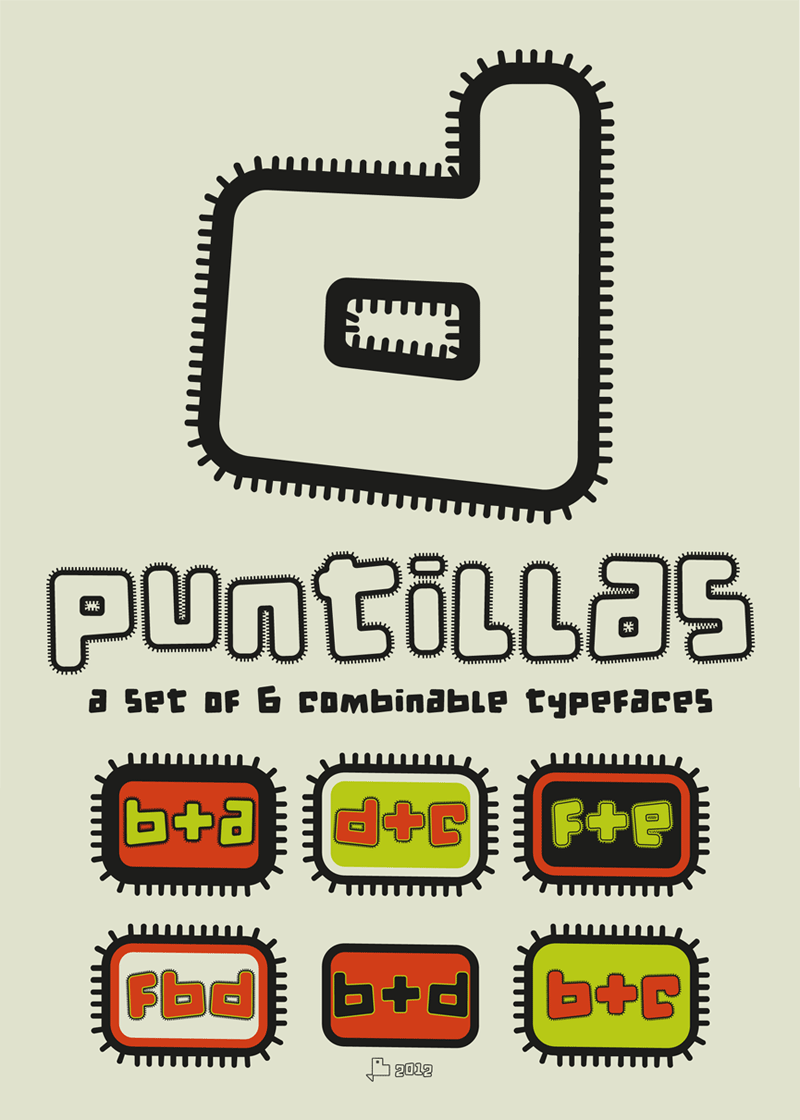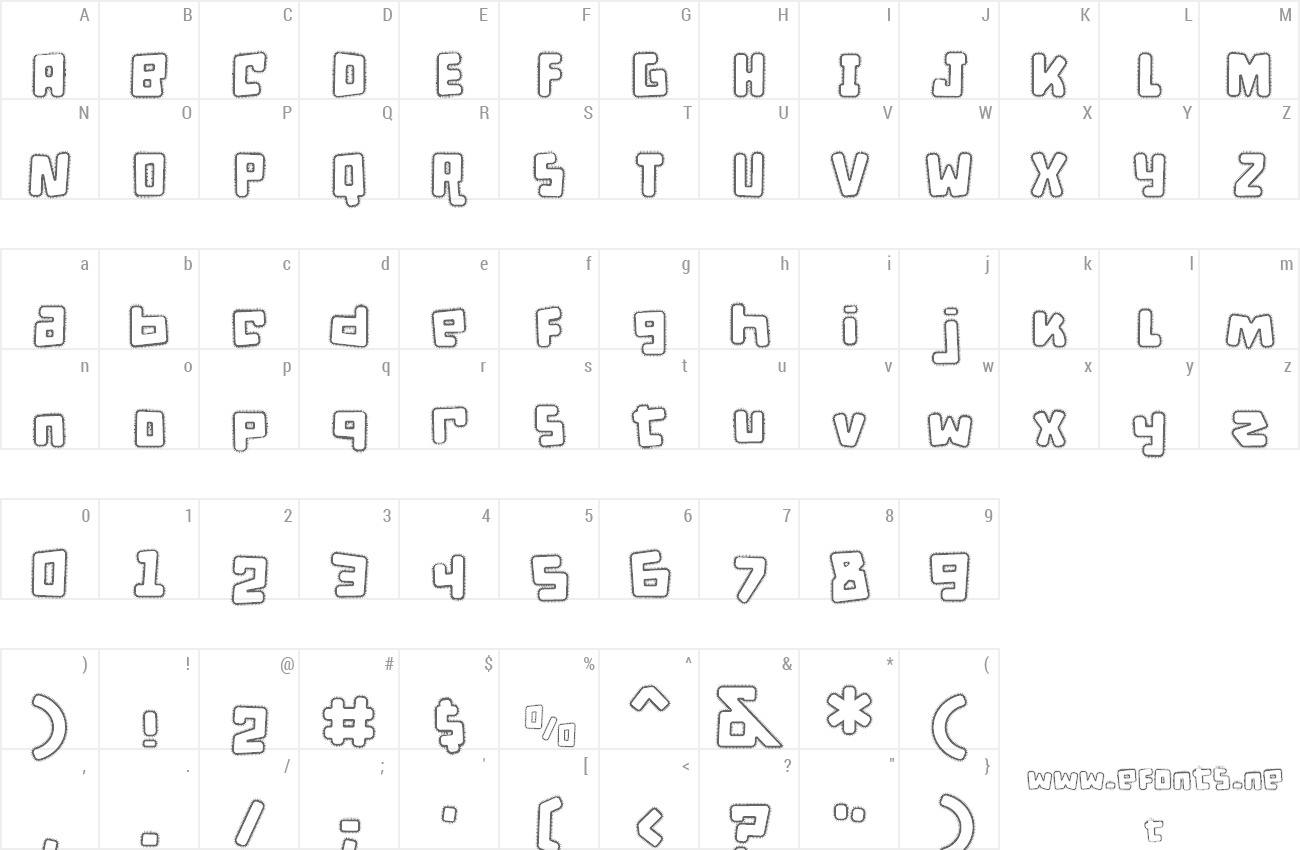
Font name: | D Puntillas |
d puntillas, a set of 6 combinable fonts, summer style and fun to design logos, typographical banners and posters or vector. Commercial license available on my web: https://defharo.com/fonts/d-puntillas-familia-tipografica-display/ |